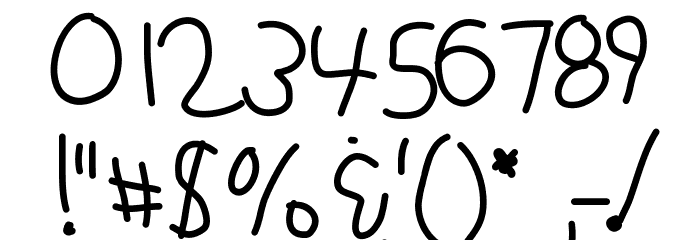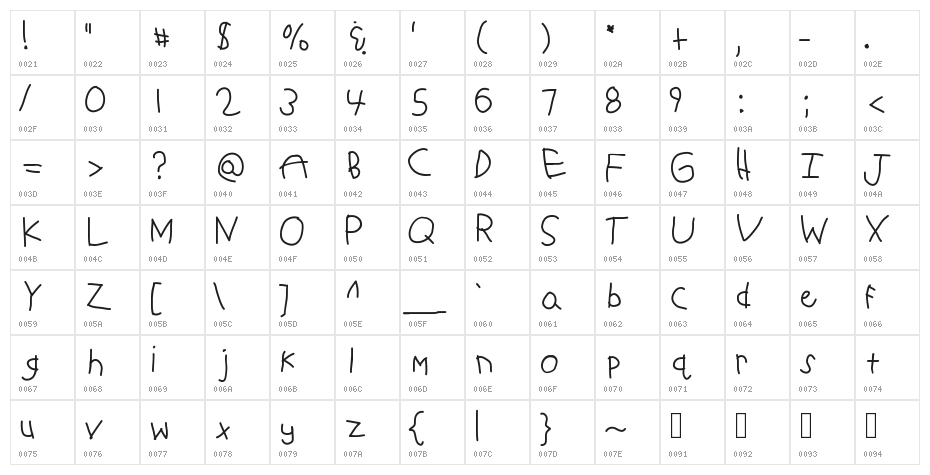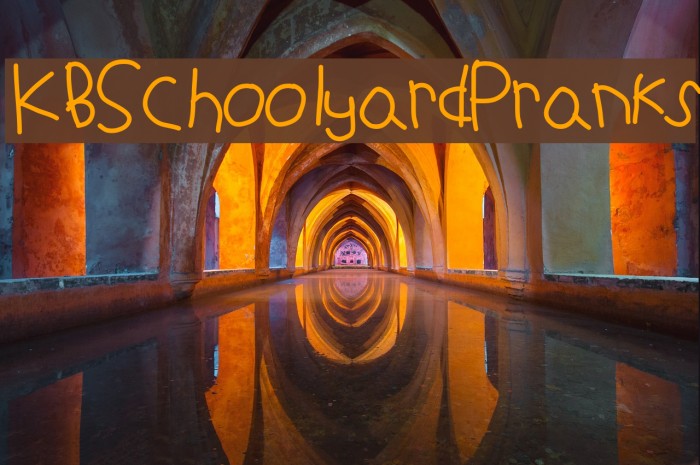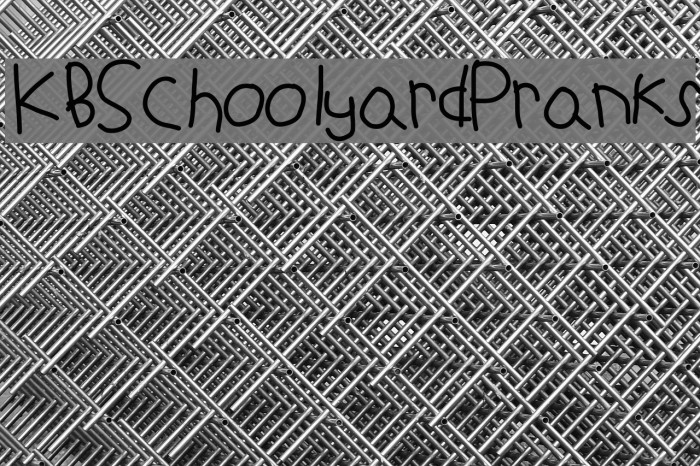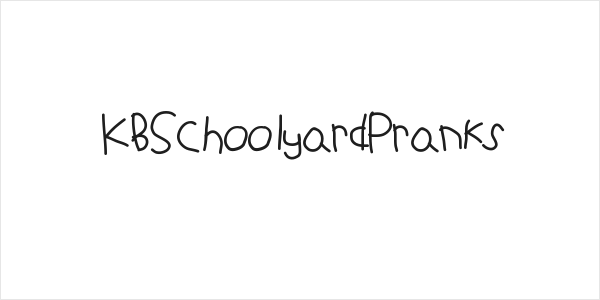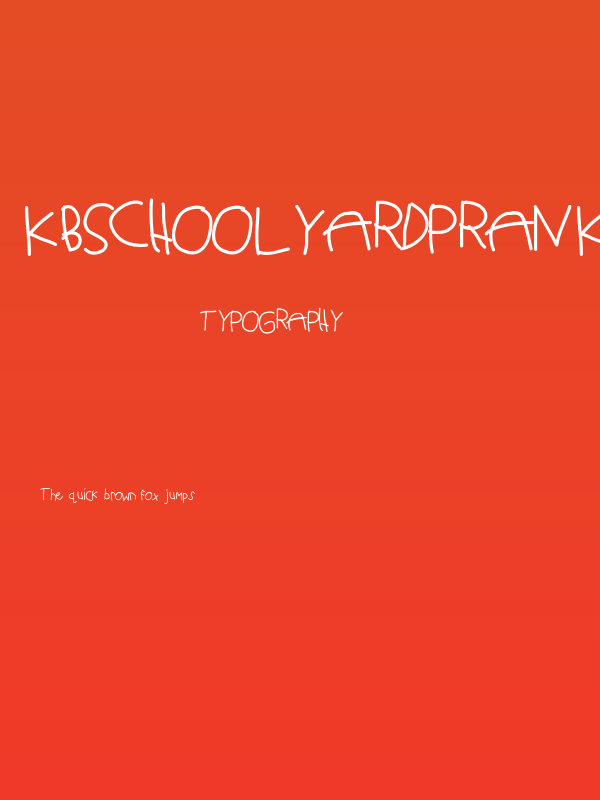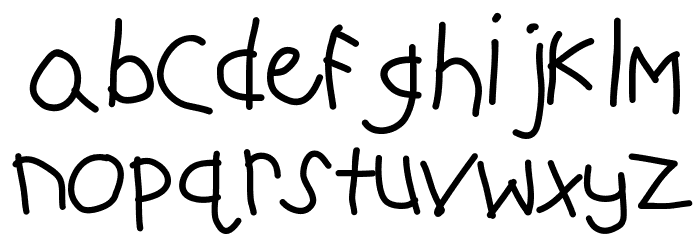
KBSchoolyardPranks Font
KBSchoolyardPranks Description
This playful and whimsical font captures the essence of youthful creativity with its hand-drawn, uneven strokes. Each character exhibits a lively and spontaneous feel, reminiscent of doodles in a school notebook. The letters are slightly irregular, adding to the charm and informal style. The font maintains a consistent line weight, giving it a cohesive appearance despite the playful nature. It includes a full set of uppercase and lowercase letters, numbers, and a variety of special characters, making it versatile for various design needs. The overall look is casual and friendly, perfect for projects that require a touch of fun and personality.